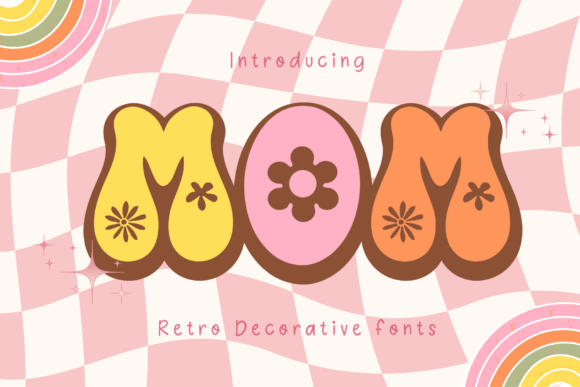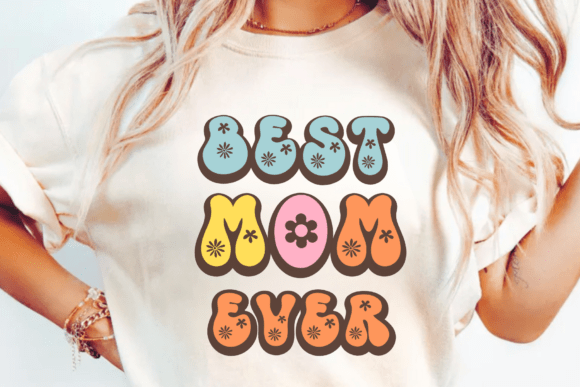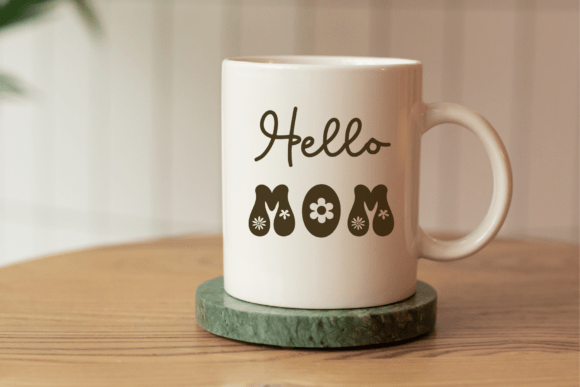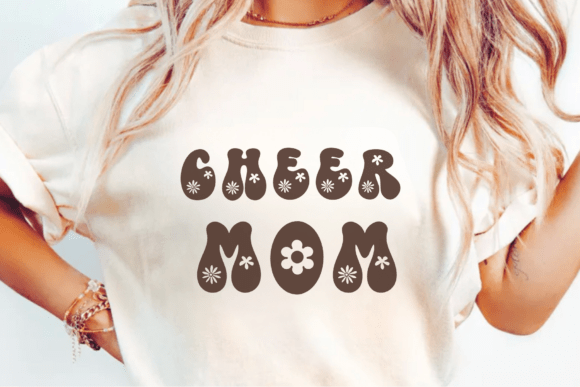
Mom Font
About the Mom Font
Experience the unique personality of Mom Font, a font designed for impact. Mom is a playful and cute font that brings a retro vibe to your projects. With its fun and friendly style, it adds a touch of whimsy to any design. Perfect for creating eye-catching titles, posters, t-shirt, mug or logos with a vintage feel. Let Mom retro font creations with nostalgia and cheerfulness.
Mom Font’s playful energy makes it ideal for headlines, short taglines, and branding elements where a touch of vintage charm is desired. It works well on posters, packaging for children’s products, or even social media graphics. However, its less-than-optimal x-height and character spacing make it unsuitable for body text or long paragraphs. Avoid using it in UI contexts or where high readability is paramount.
Pairing Mom Font effectively requires a contrast in styles. Consider a clean sans-serif like Open Sans or Lato for body copy to balance its retro whimsy. For a more sophisticated look, a classic serif font such as Garamond or Georgia would create a pleasing juxtaposition. Avoid pairing it with other highly decorative or playful fonts, as this could result in visual clutter.
Mom Font’s overall personality is best described as cheerful and nostalgic, conveying a sense of friendly approachability. Brands targeting a younger demographic or those emphasizing fun and lightheartedness would find it particularly effective.
Mom Font Usage Examples
Mom Font Example